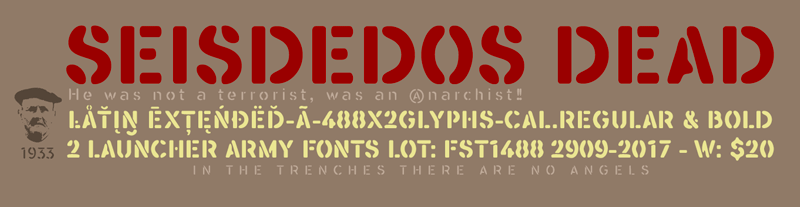
Preview and download Seisdedos Dead Font. Created by deFharo in Fancy Stencil, Army styles with Free for personal use license.
Seisdedos Dead are two font (Regular & Bold) of type stencil eroded by the use. A fun typographic game for the de-construction of the original letters, to print a worn style where the passage of time is appreciated. These typographies are descended from the fonts "Flamante Stencil" ============================================== FULL VERSIONS & COMMERCIAL LICENSE: https://defharo.com/fonts/seisdedos-dead/ |